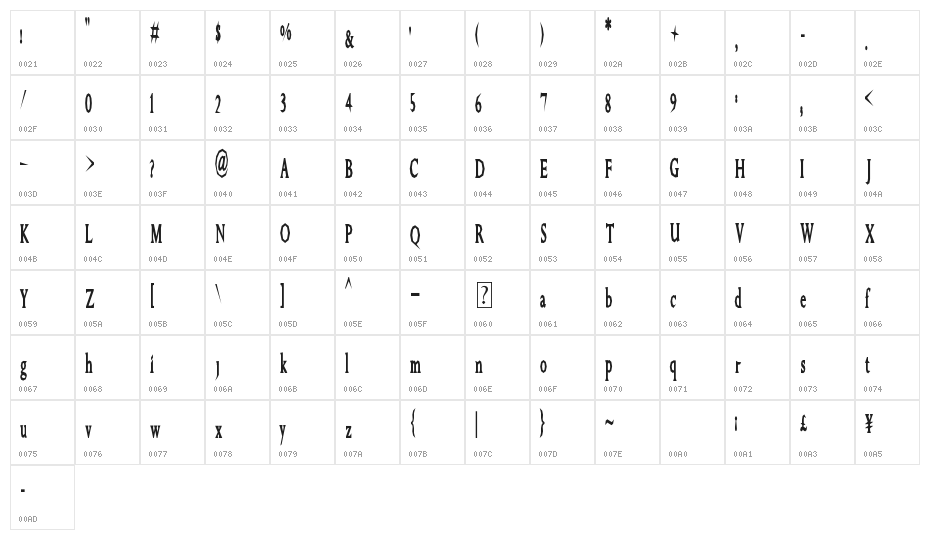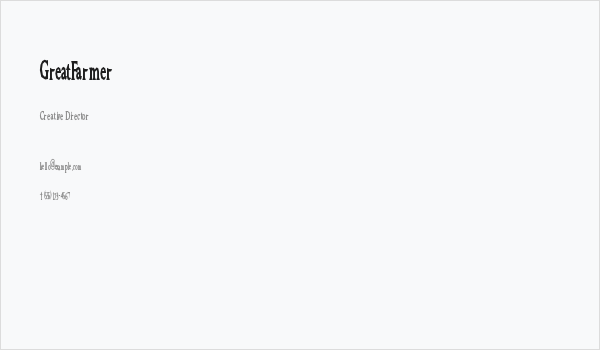
GreatFarmer Font
GreatFarmer Description
This font features a bold and dramatic style with sharp, angular serifs and a strong presence. The uppercase letters are particularly striking, with their pointed edges and dynamic shapes, while the lowercase letters maintain a consistent style that complements the uppercase. The numbers and special characters are equally bold, ensuring a cohesive look across all elements. The font's unique design makes it stand out, with a medieval or gothic influence that adds a touch of historical flair. Its high contrast between thick and thin strokes enhances its readability and visual impact.
| Proposed Projects | Ideal for projects requiring a strong, historical aesthetic such as book covers, posters, or branding for vintage-themed products. |